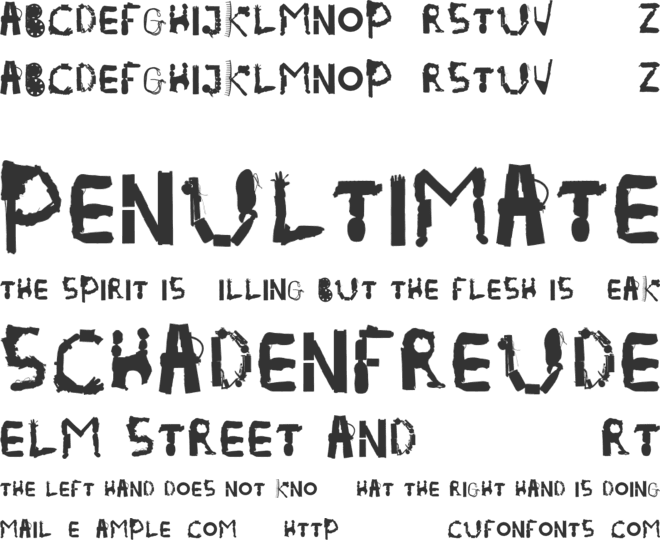
The cleanest font in the world
The Cleanest Font In The World – Made From trash Found In Nature Of Slovenia
On a World cleanup day, 15th of September Slovenians didn’t just clean their country but also created an original typeface from garbage.
Volunteers transformed different sort of waste found in nature – old cans, batteries, bottles, tires, helmets, jackets, furniture, etc. into artistic font.
The cleanest font in the world can now be used as a reminder that every piece of trash can be RECYCLED AND REUSED – even as art. It is also vectorized & freeware so anyone can leave or type a message in a font made from real garbage.